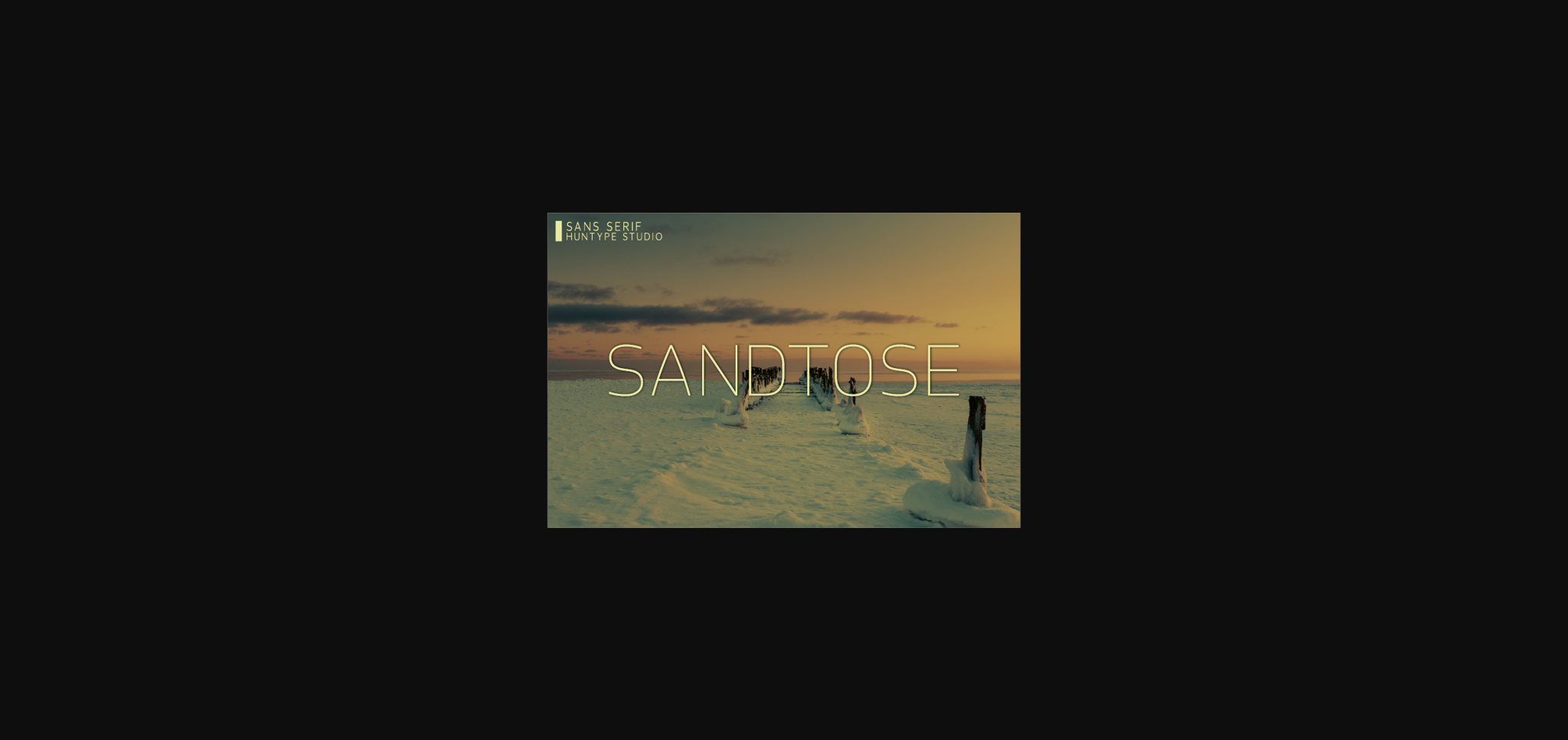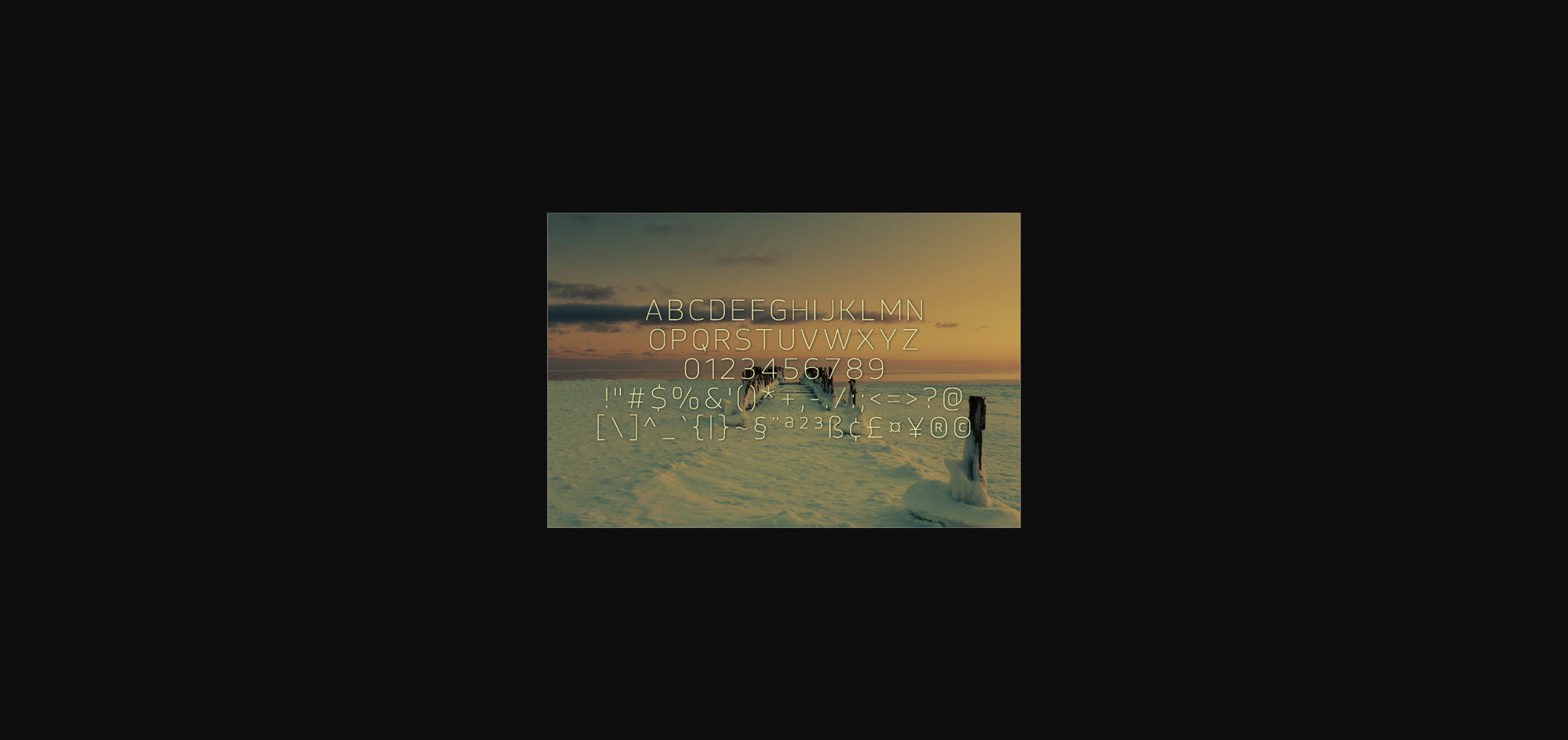
About Sandtose Font
Sandtose is a modern and clean sans serif font that is versatile and looks great in just about any context. With smooth and clean lines, and just a touch of contrast, Sandtose works beautifully for logos, branding, web headings and much more.